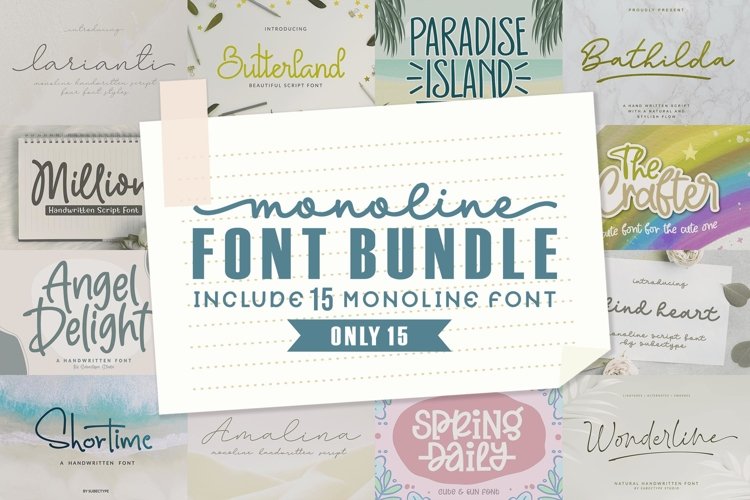
Monoline and Handwritten Font Bundle
MONOLINE and HANDWRITTEN FONT BUNDLE Is an gorgeous monoline font bundle collection.
The bundle contains 25 fonts packed.